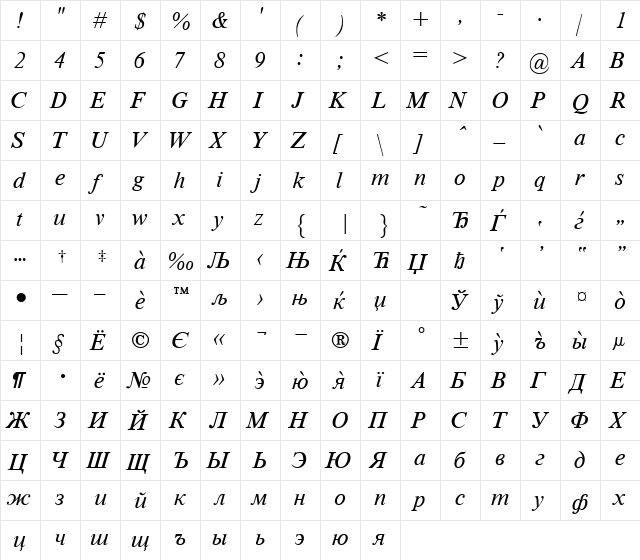
TmsCyr Italic
Design Context for TmsCyr Typeface
TmsCyr offers clean, dependable letterforms without strong stylistic allegiance, making it a practical choice for designers who need flexibility. The dynamic lean of this cut emphasises speed and emphasis in any layout.
Pro Tip: Try TmsCyr for annotation and caption copy alongside an upright companion — the contrast in angle creates a dynamic but ordered typographic system.